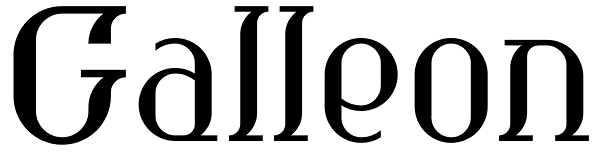
Galleon
When you look at it for the first time, it seems to you that letters are inclined to the right. But it is only an illusion. Why Galleon you ask? I do not know. There is in it something both from the sea and from a wind.
Galleon Font